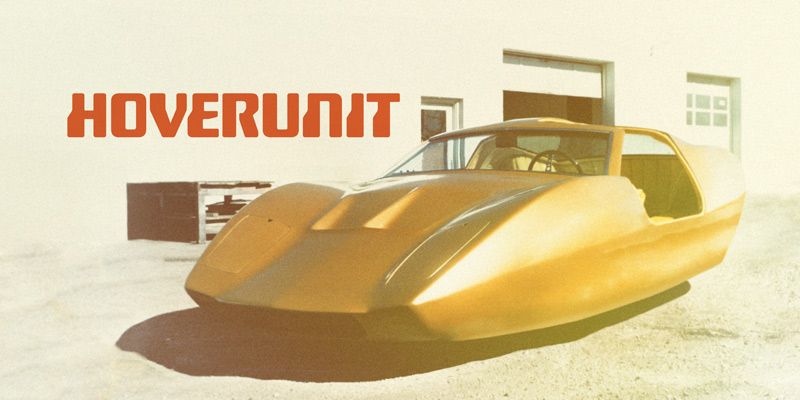
Hoverunit specimen
Hoverunit
Attention, Citizens of Earth! At Typodermic, we used font science, lab coats and turbo lasers to generate the perfect model of a font from the year 300000—mondo stroppy.